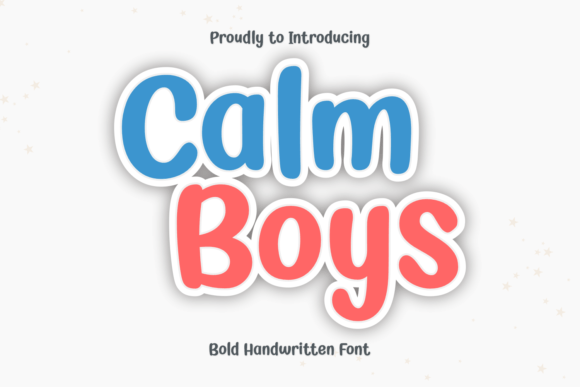
Remember that moment when you’re brainstorming ideas for a new project and the perfect font suddenly pops into your mind? You see it in your head, and you can’t wait to bring it to life. For designers, finding the right font can make all the difference between a good design and a great one. That’s where the Calm Boys Font comes in – a beautiful, handwritten font that’s as elegant as it is bold.
Designed to capture the charm of stylized penmanship, the Calm Boys Font is perfect for adding a touch of personality to your designs. Its clean and compact design makes it versatile and easy to use, whether you’re creating a logo, a poster, or a website. With the Calm Boys Font, you can add a unique and captivating element to your projects that will set them apart from the rest.
Calm Boys Font Key Features
- Unique Characteristics: Calm Boys Font features a unique blend of modern and classic elements, with subtle rounded edges and smooth curves, giving it a calming and soothing effect.
- Language Support: The font supports a wide range of languages, including Latin, Cyrillic, and Greek alphabets, making it a versatile choice for global designs.
- Font Style: Calm Boys Font comes in regular, italic, bold, and bold italic styles, providing designers with flexibility to choose the perfect font style for their projects.
Calm Boys Font Review
At first glance, the Calm Boys Font seems like a great choice for any project that needs a laid-back, friendly vibe. ✨ Its unique design is sure to grab attention and create a memorable experience for users. Here are some things that work well:
- Unique design that sets it apart from other fonts
- Perfect for projects that require a friendly, approachable tone
- Wide range of styles and weights to choose from
- May not be suitable for projects that require a professional or formal tone ⚠️
- Some characters may not be fully optimized for certain languages or characters sets
- May require some extra work to get the font to look its best on different screen resolutions
Overall, I think the Calm Boys Font is a great choice for the right project. It’s unique design and friendly vibe make it perfect for anything that requires a relaxed, approachable tone. Just be sure to consider the potential limitations and make sure it’s the right fit for your project.
Calm Boys Font Practical Application Guide
For optimal results, use the Calm Boys font in conjunction with a clean and simple design. This font is ideal for creating a calm and serene atmosphere. Experiment with different font sizes and styles to achieve the desired effect.
The Calm Boys font is commonly used for:
- Creating calming and soothing designs.
- Designing children’s products or educational materials.
- Developing branding materials for wellness or relaxation services.
Alternatives to Calm Boys Font
Great Vibes Font is a modern script font that is perfect for creating a relaxed and friendly atmosphere. It is ideal for use in logo designs, invitations, and social media graphics. When to use: For designs that require a casual and approachable feel.
Great Vibes Font is similar to Calm Boys Font in its relaxed and casual nature, but it has a more modern and sleek appearance. It is a great choice for designers who want to create a contemporary look without sacrificing the friendly feel of Calm Boys Font.
Alex Brush Font is a beautiful script font that is perfect for creating a warm and inviting atmosphere. It is ideal for use in branding, packaging, and advertising designs. When to use: For designs that require a touch of elegance and sophistication.
Alex Brush Font is similar to Calm Boys Font in its flowing and handwritten style, but it has a more refined and sophisticated appearance. It is a great choice for designers who want to create a high-end look without sacrificing the friendly feel of Calm Boys Font.
What is the recommended font size for using Calm Boys Font?
The recommended font size for Calm Boys Font is between 12pt and 24pt, depending on the specific application and design context. However, feel free to experiment with different font sizes to achieve the desired visual effect.